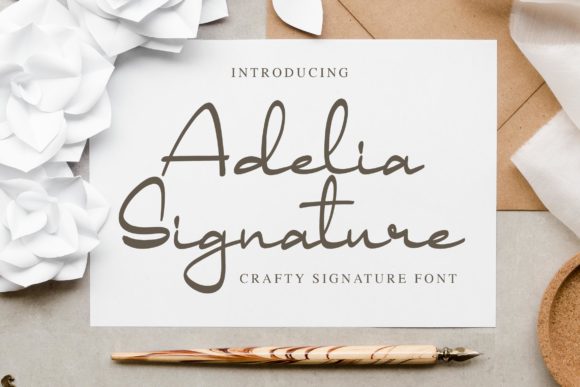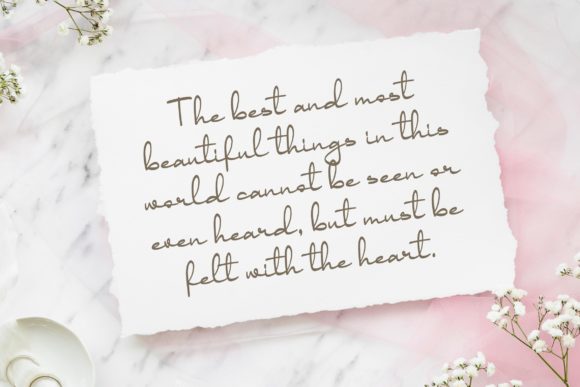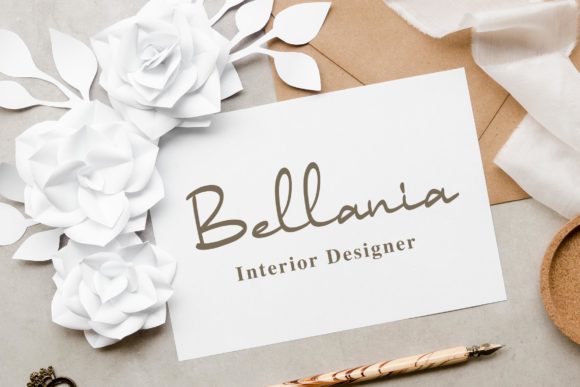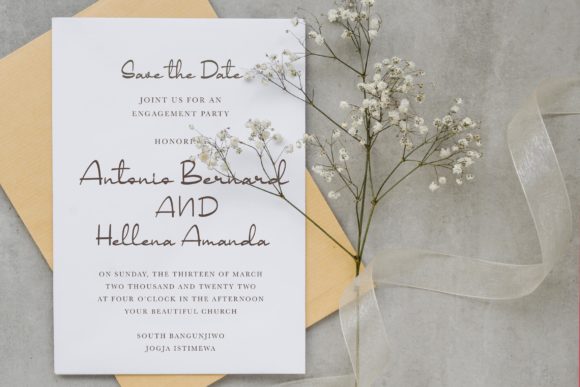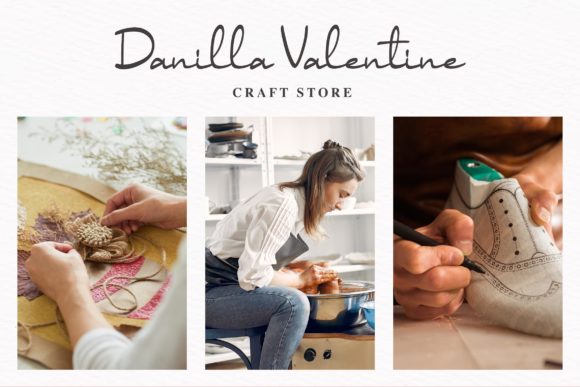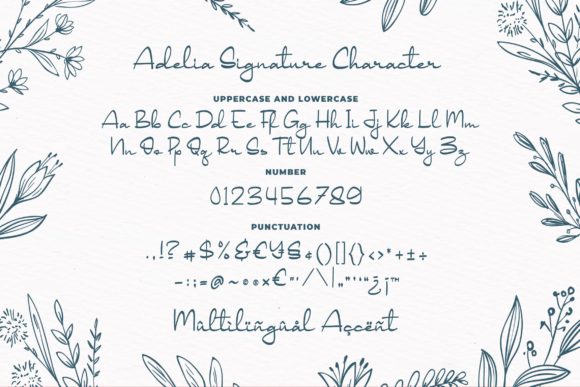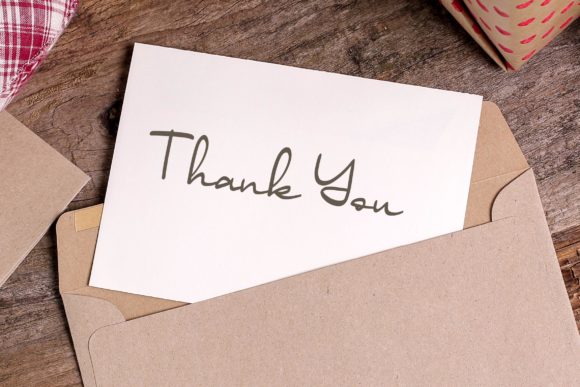
Adelia Signature Font
About Adelia Signature Font
Adelia Signature is a cute and relaxed handwritten font. It features gorgeous swashes and ligatures that make this script incredibly versatile. Whether you’re looking for fonts for Instagram or calligraphy scripts for DIY projects, _____ will turn any creative idea into a true piece of art!